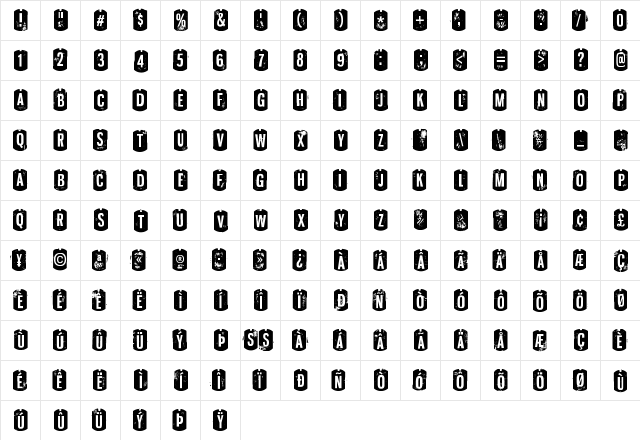
Nyxali Regular
Design Context for Nyxali Typeface
Nyxali is a composed and adaptable typeface that performs quietly and consistently across a wide range of design contexts.